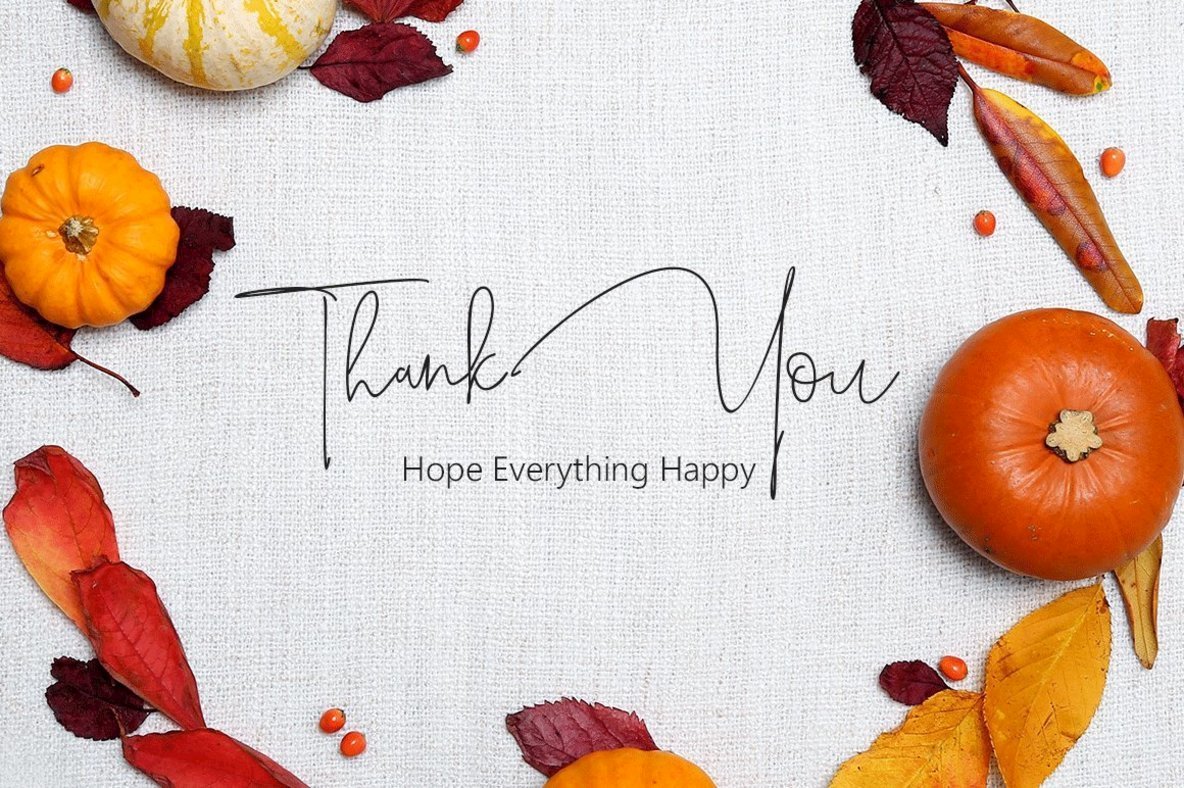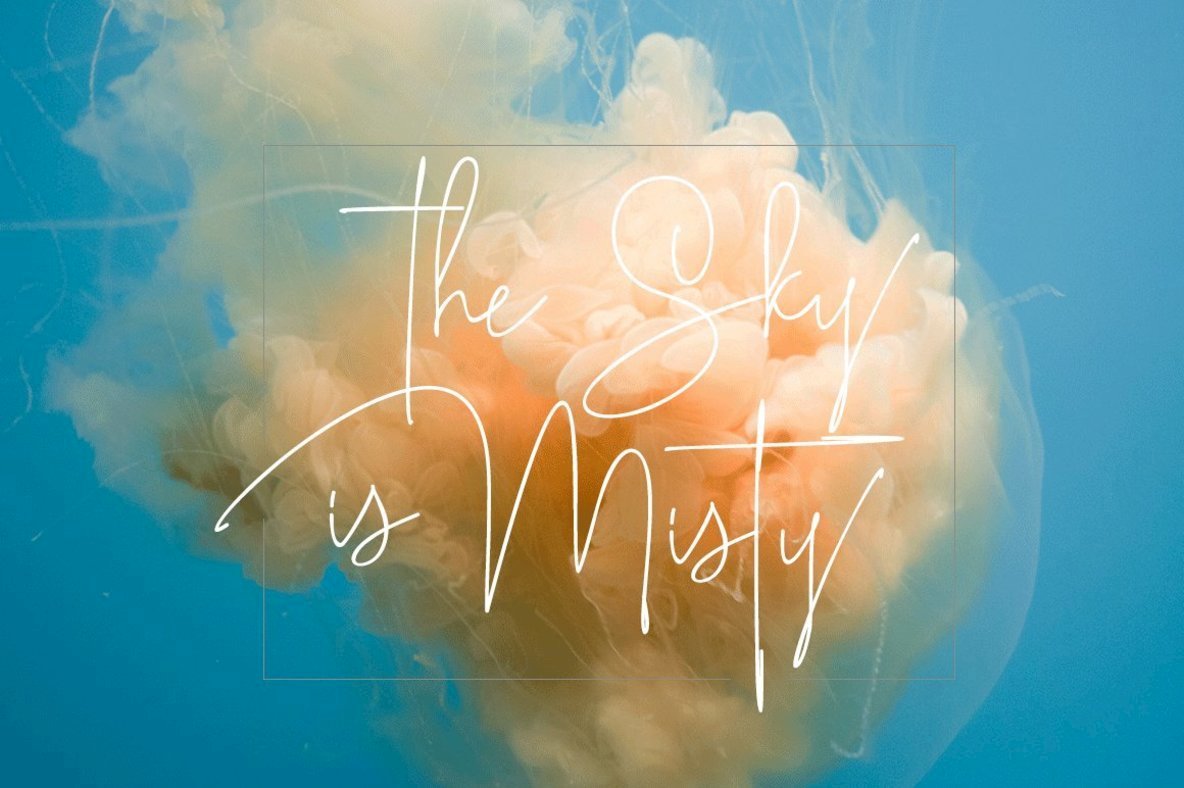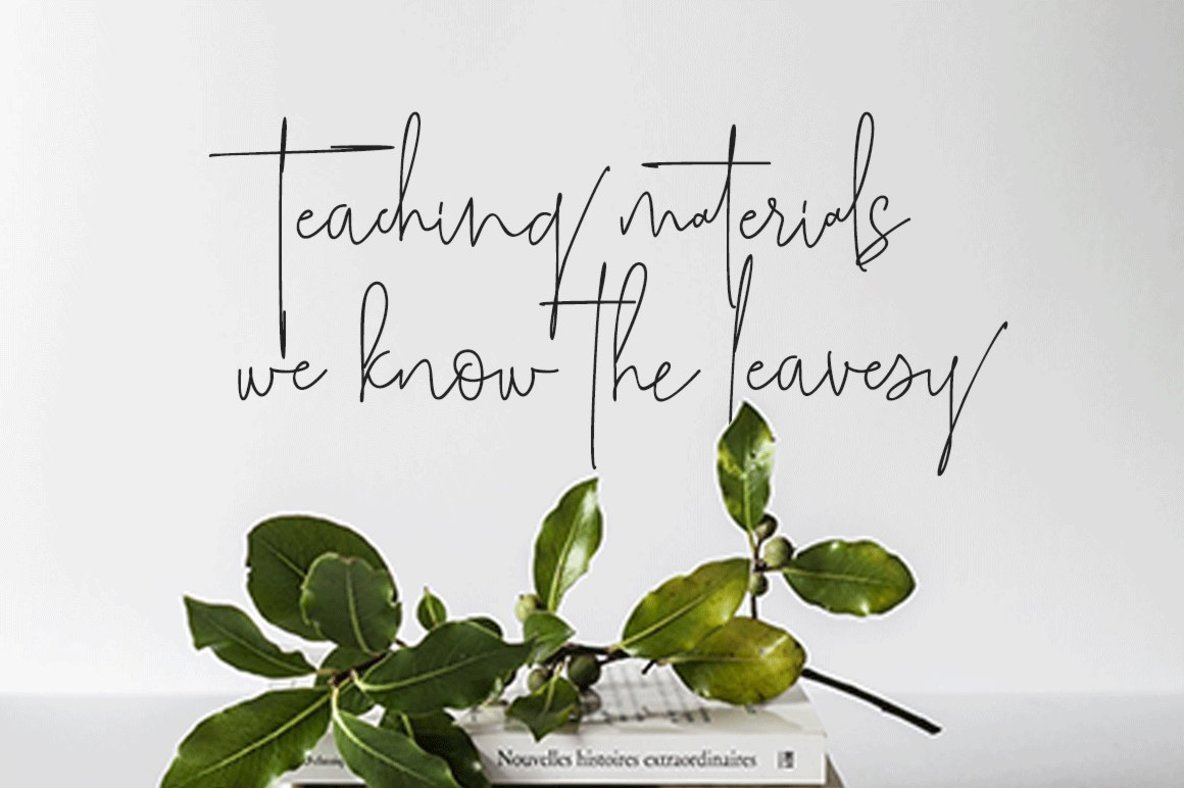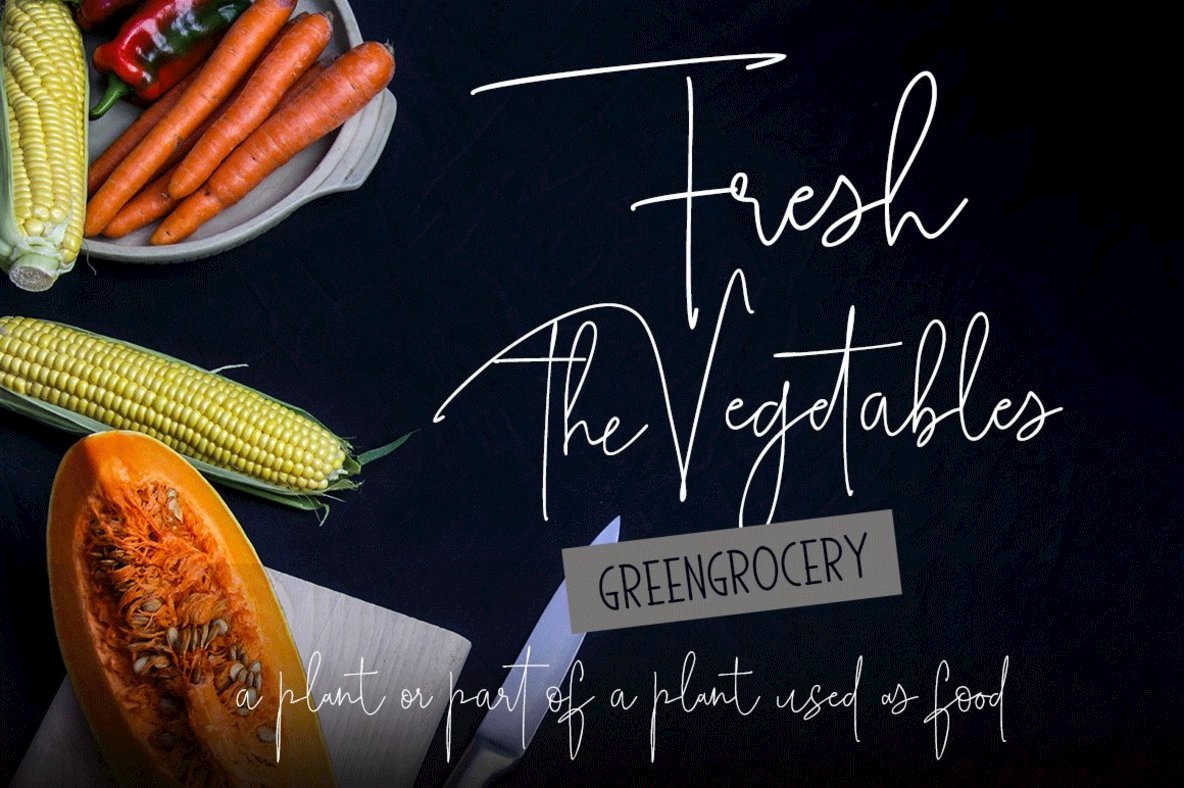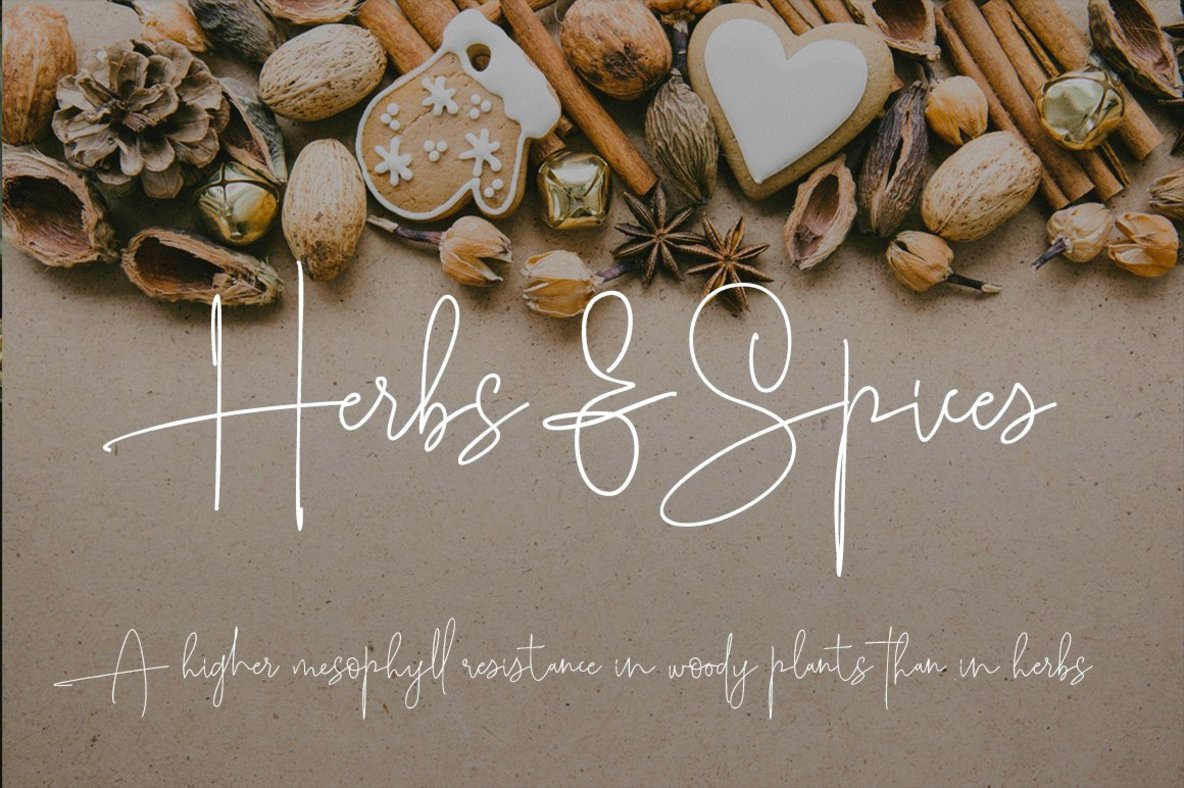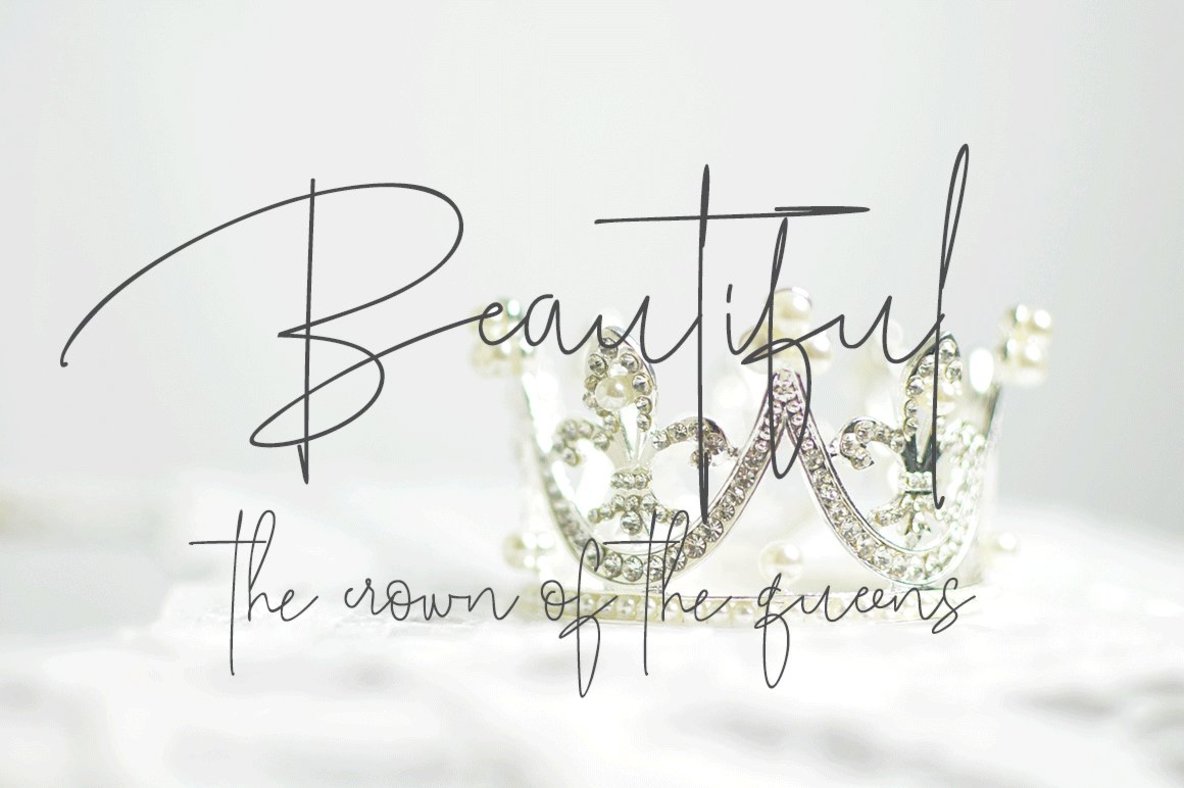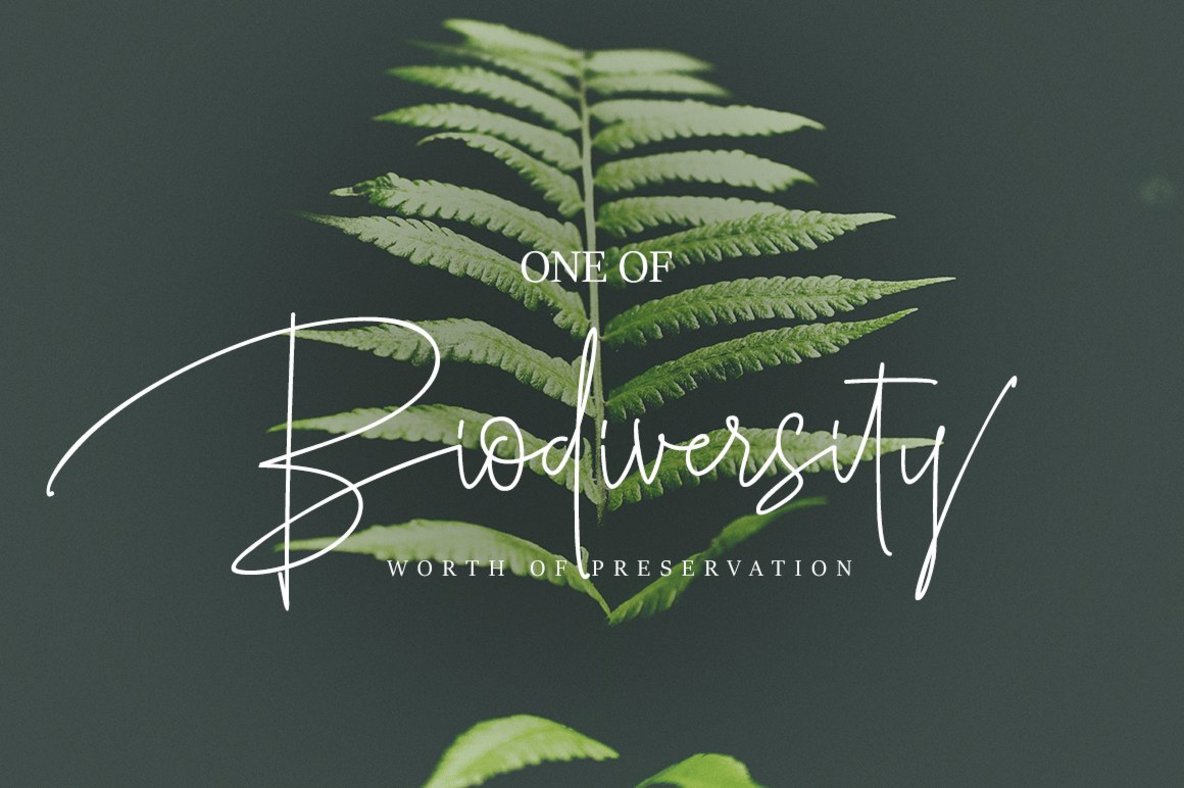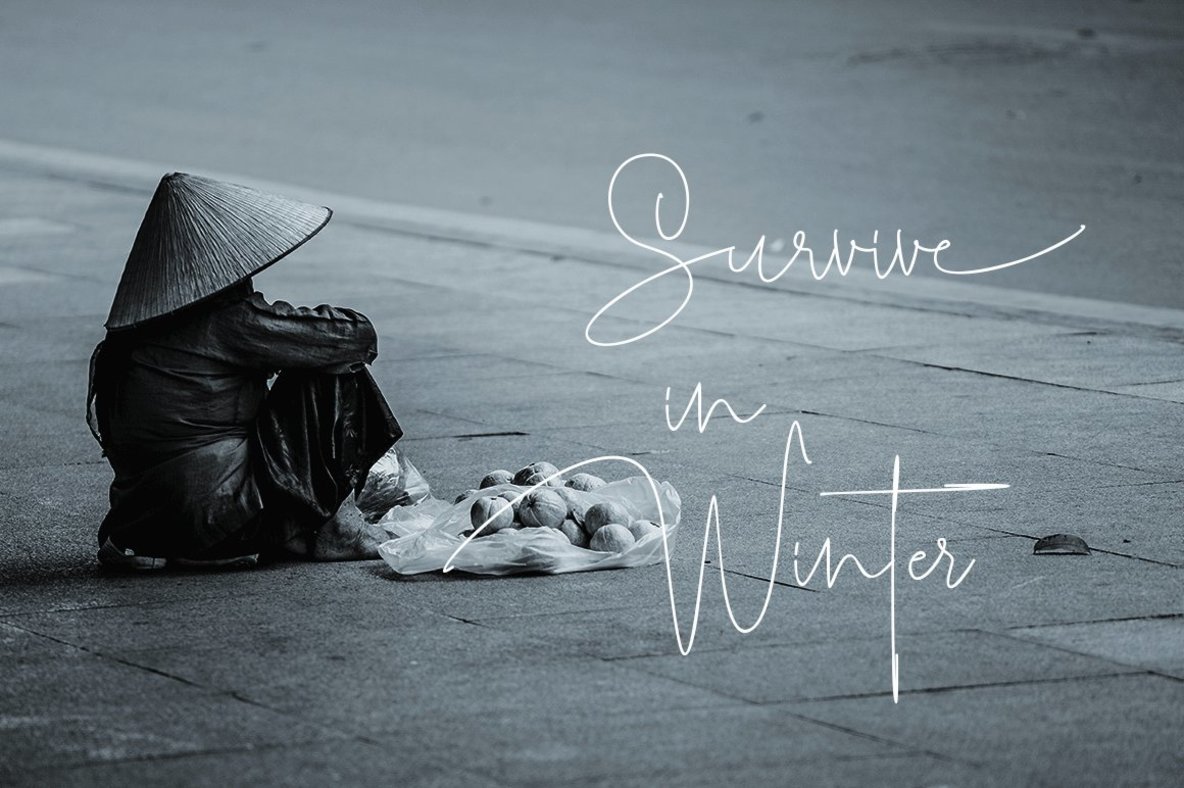
Roselle Font
Roselle
Roselle captures the essence of personal touch with the elegance of a monoline design. Ideal for a variety of creative applications, its natural flair shines through in invitations, signatures, blogs, and social media. Elevate your business cards and product branding with the handwritten charm of this unique font.Roselle: Elegant Handwritten Font with Monoline Style